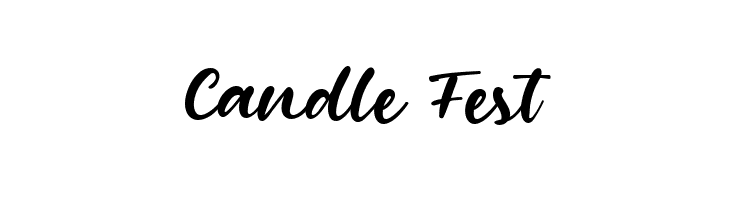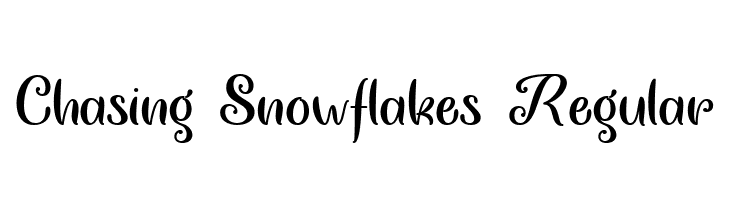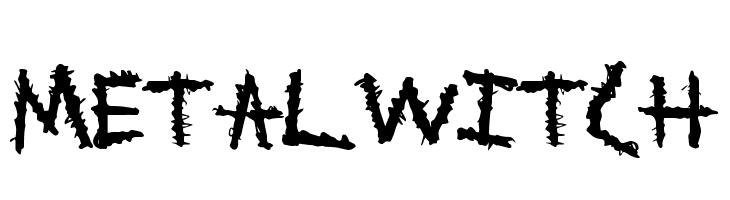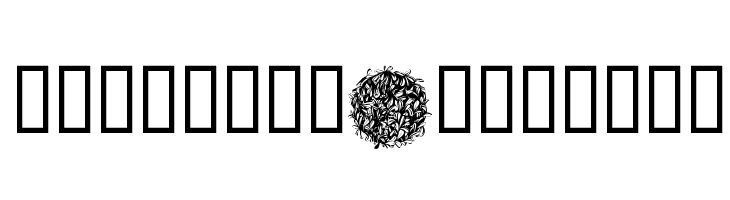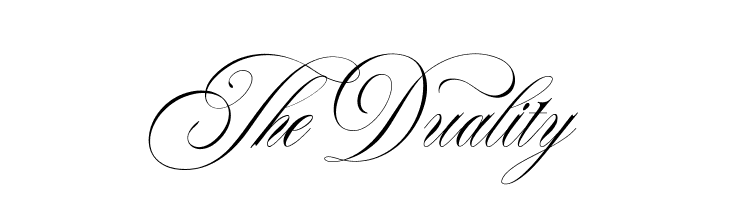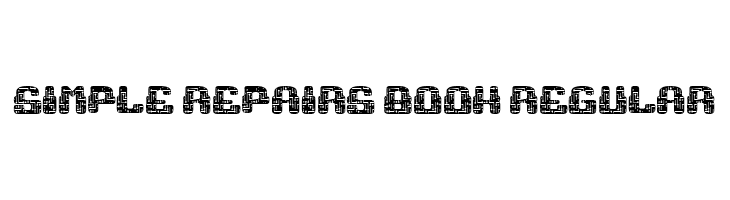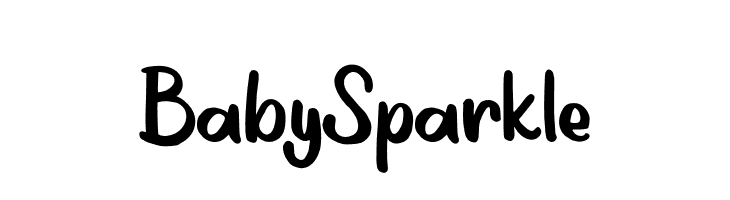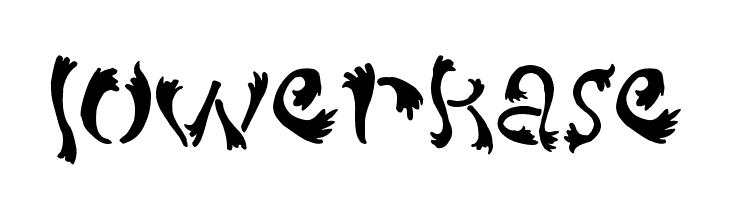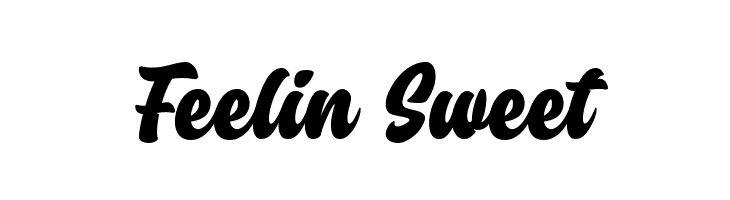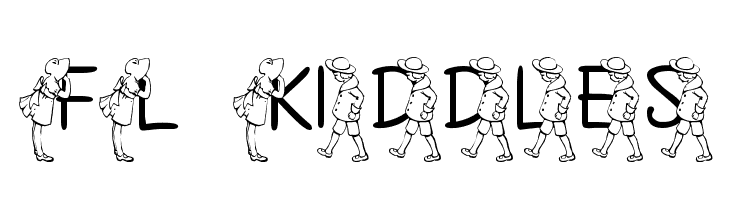
A flowing, cursive font with a modern yet classic handwritten style.
A playful and whimsical script font with decorative swirls and loops.
A rugged, thorny font with jagged edges and an aggressive style.
Ornate decorative font with clover patterns.
An elegant script font with intricate swirls and flowing lines, perfect for formal designs.
A bold, maze-patterned decorative font with a modern and artistic style.
A playful, handwritten font with a casual and friendly style.
A decorative font with organic, flowing shapes and intricate details.
A bold, cursive font with a playful and energetic style.
A playful font with child illustrations integrated into each letter, offering a whimsical and creative style.